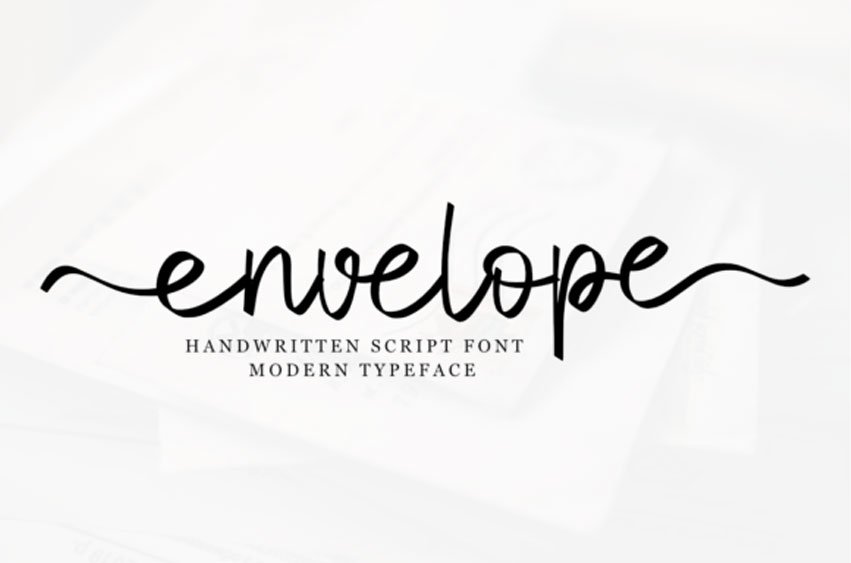
Envelope Font is a beautifully flowing and elegant handwritten script font that exudes a sense of personal touch and modern sophistication. Its graceful, cursive letterforms feature smooth connections and stylish swashes, creating a distinctly natural and refined aesthetic. This modern typeface is incredibly versatile and perfect for adding a touch of handwritten charm to a wide range of creative projects.
Imagine Envelope enhancing elegant wedding invitations, sophisticated branding materials, personalized stationery, heartfelt greeting cards, stylish social media graphics, beautiful quotes, eye-catching logos, and a variety of other exquisite designs.
Its natural and flowing style makes it exceptionally well-suited for products targeting end-users who appreciate a personal and elegant touch, including those who use Cricut for personalized gifts, sublimation for stylish merchandise like mugs and apparel, and create beautiful stickers and planner elements.